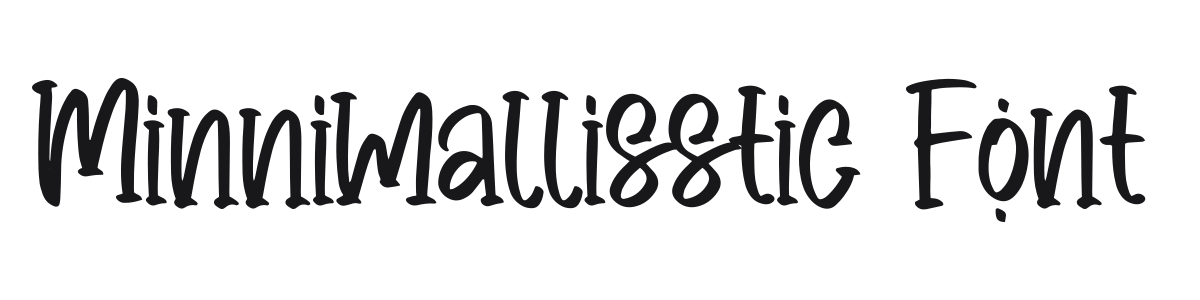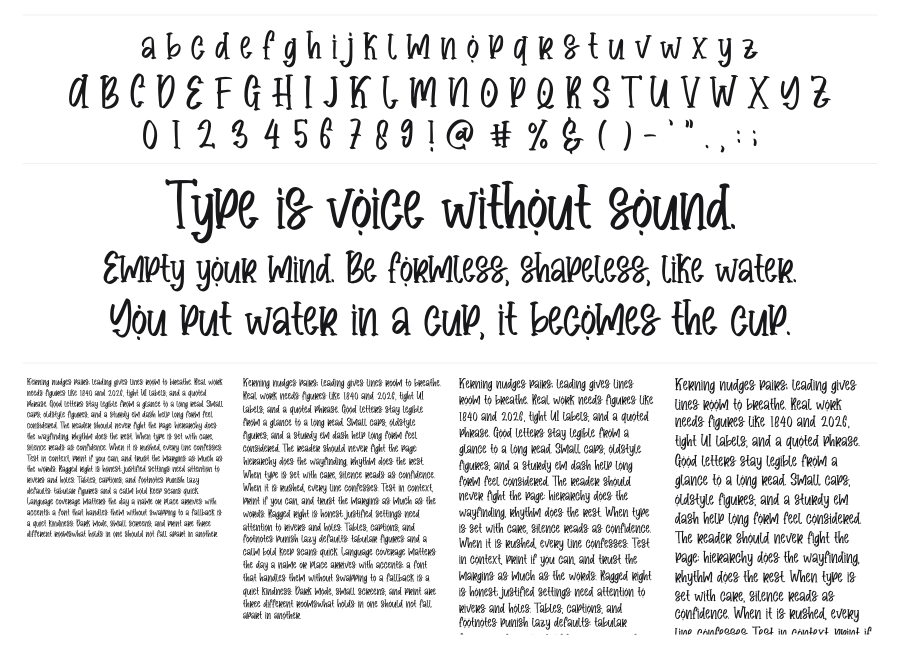
Minnimallisstic Font
Minnimallisstic is a bold upright casual script with a hand-lettered, marker-drawn personality. Thick strokes, rounded ball terminals, and slightly bouncy baselines give it an energetic, approachable feel without tipping into chaos. It works well for logos, packaging, and any headline that needs warmth and informality.